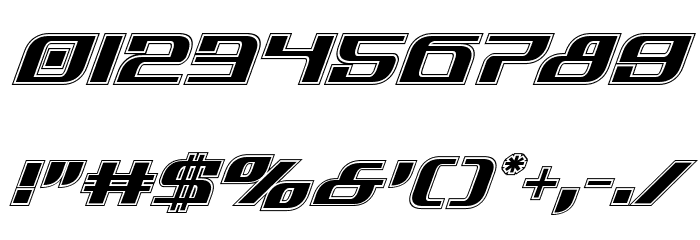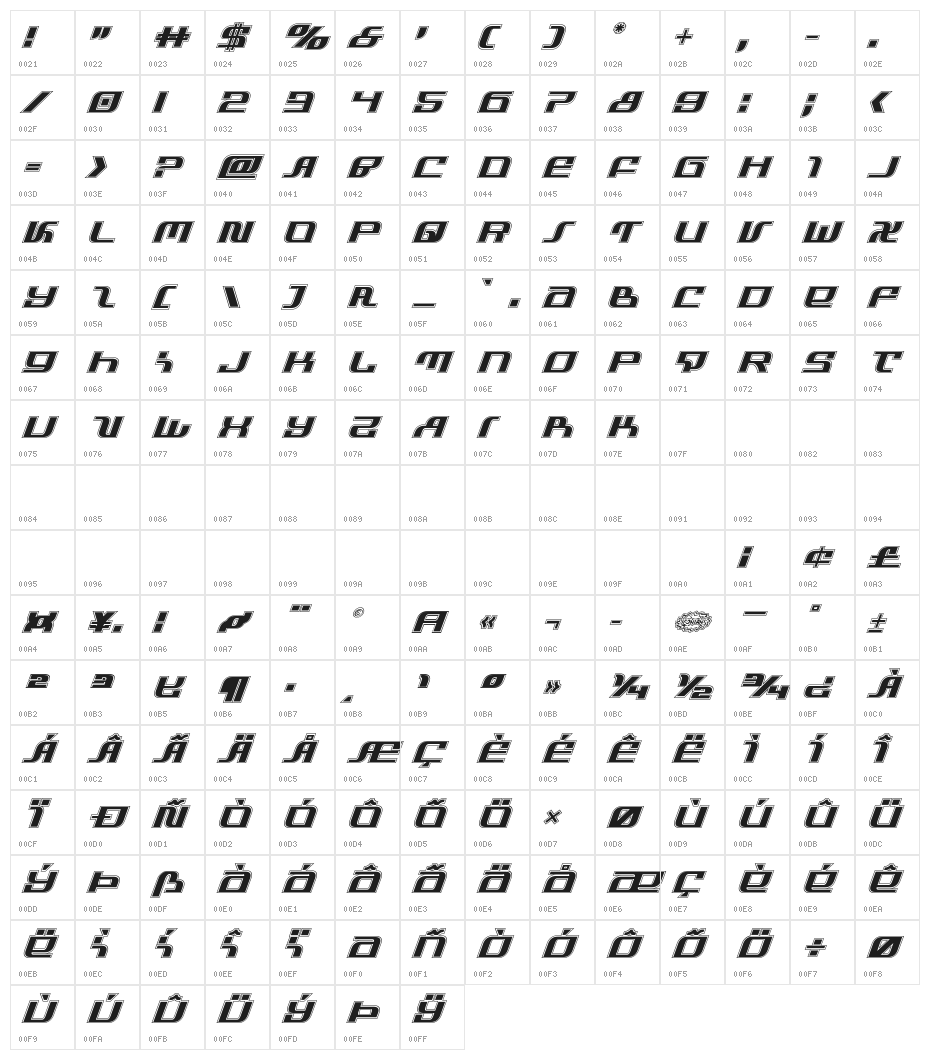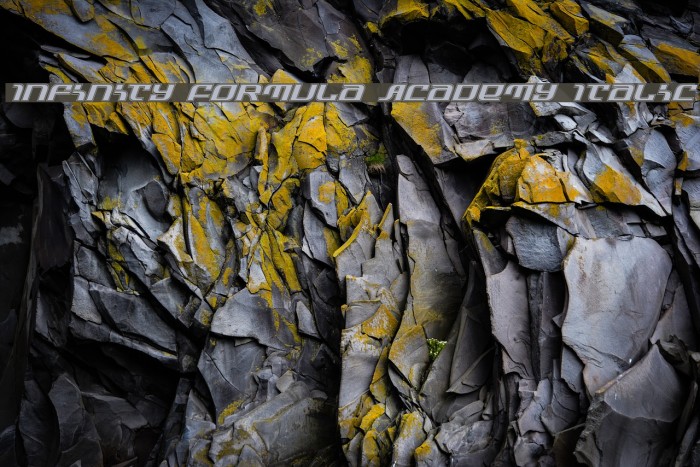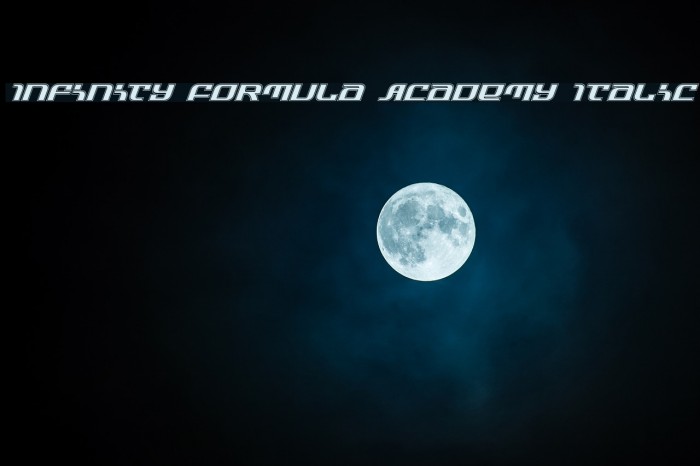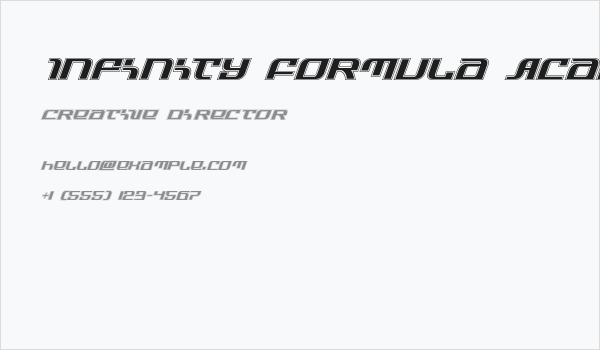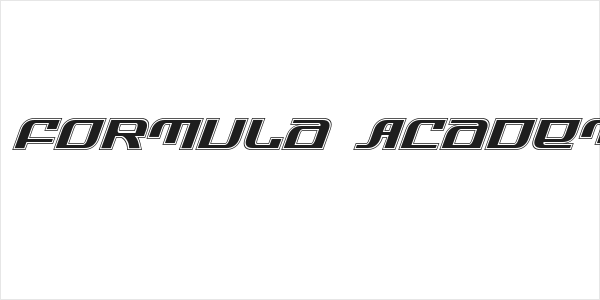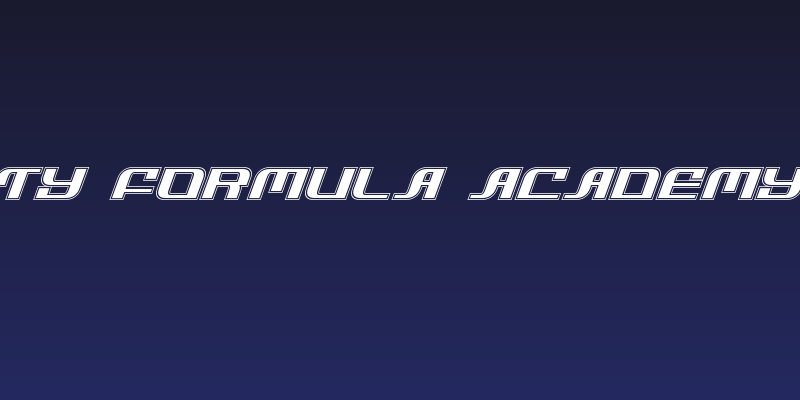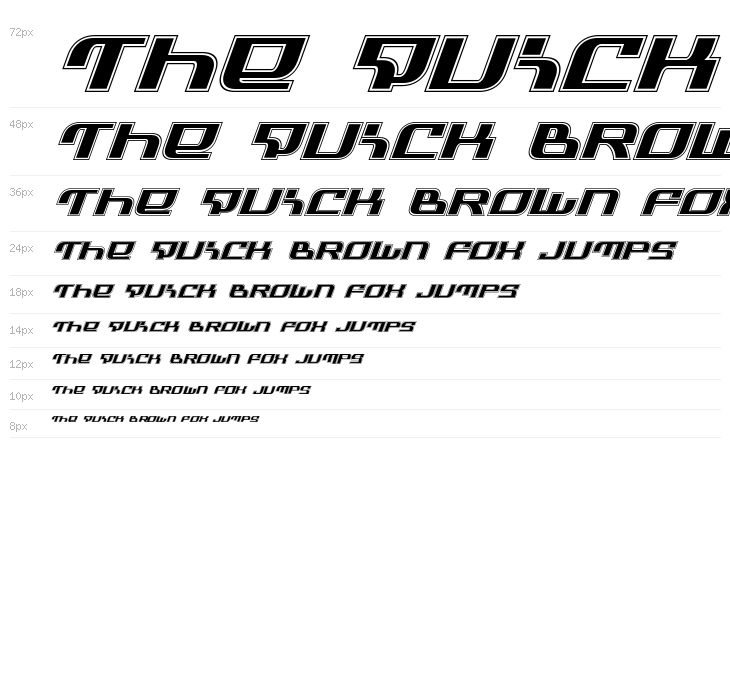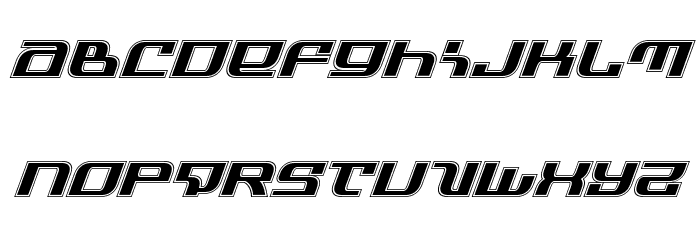
Infinity Formula Academy Italic Font
Infinity Formula Academy Italic Description
This font features a futuristic and dynamic design, characterized by its italicized and bold letterforms. The characters have a distinct, angular style with sharp edges and a sense of motion, making it ideal for projects that require a modern and energetic look. The uppercase and lowercase letters maintain a consistent style, with a unique geometric flair that adds to its visual appeal. The numerals and special characters are designed to complement the overall aesthetic, ensuring a cohesive appearance across all text elements.
Proposed ProjectsIdeal for sports branding, automotive advertisements, video game titles, and technology-related projects.